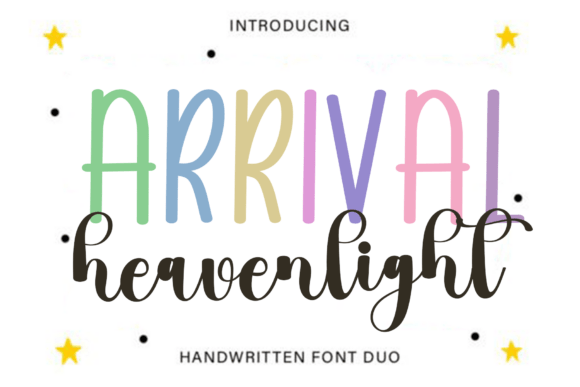
The Magic of Arrival Heavenlight Font: A Festive Holiday Companion
I still remember the year I spent hours searching for the perfect font for a client’s holiday project. The design brief was simple: create a whimsical and festive greeting card that captured the essence of the season. But, as I scrolled through font after font, I just couldn’t find the right fit. That was until I stumbled upon Arrival Heavenlight Font. It was like a breath of fresh air – the perfect blend of decorative elements, whimsy, and cheer. In this article, I’ll share my experience with this beautiful font, its features, and how to make the most of it in your designs.
An Honest Review of Arrival Heavenlight Font
• ✨ Festive and merry vibe that’s perfect for holiday designs
• ✅ Decorative elements and whimsical flair that add a touch of enchantment
• 💫 PUA encoded, making it easy to access all the amazing glyphs and ligatures
• 🎉 Perfect for greeting cards, gift tags, and holiday-themed projects
While Arrival Heavenlight Font is a stunning addition to any design, there are a few things to keep in mind:
• ⚠️ Some of the decorative elements may be quite intricate, which can make them difficult to read at smaller font sizes.
• 🤔 The font may not be the best choice for body text or long paragraphs, as it’s designed to make a statement.
The Designer Inspiration Behind Arrival Heavenlight Font
The story behind Arrival Heavenlight Font is one of festive cheer and design passion. The font was created by a team of designers who wanted to capture the magic of the holiday season in a typographic form. Inspired by vintage holiday cards, snowflakes, and twinkling lights, they crafted a font that’s both merry and decorative. Whether you’re a designer, crafter, or creative hobbyist, Arrival Heavenlight Font is sure to bring a smile to your face and a touch of enchantment to your designs.
Q: What is PUA encoding, and how does it benefit the font?
A: PUA (Private Use Area) encoding allows designers to access a wide range of glyphs and ligatures, making it easier to create unique and decorative text. In the case of Arrival Heavenlight Font, PUA encoding provides access to a variety of festive elements, such as snowflakes, holly leaves, and Christmas trees.
Q: Is Arrival Heavenlight Font suitable for body text or long paragraphs?
A: While Arrival Heavenlight Font is a beautiful addition to any design, it’s not ideal for body text or long paragraphs. The font is designed to make a statement and is best used for headlines, titles, and short text elements.